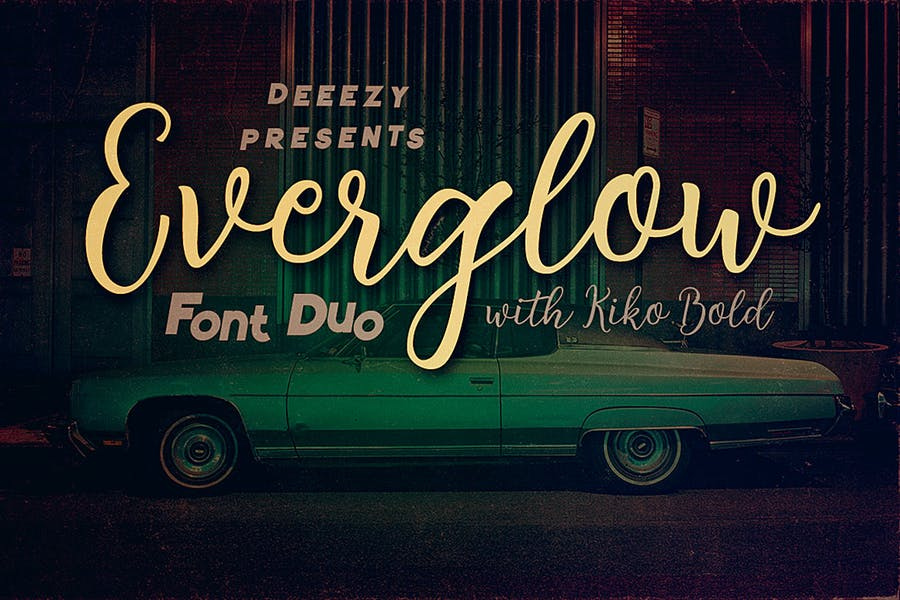
Everglow Script Font
Everglow Script Font is perfect for romantic wedding invitations, luminous beauty salon branding, ethereal event planning, enchanting lifestyle blogs, radiant personal branding, magical celebration graphics, glowing fashion campaigns, and transcendent spiritual communications.
What makes Everglow Script Font exciting is its luminous elegance that embodies radiant beauty and eternal grace with ethereal sophistication and glowing charm. The font features flowing letterforms with luminous curves and radiant character variations that evoke candlelight ceremonies, golden hour photography, and the magical glow of romantic moments and spiritual transcendence. Its distinctive glowing styling and ethereal appeal communicate beauty, eternity, and luminous grace, making every message feel illuminated from within and touched by the everlasting radiance of transcendent beauty and eternal elegance.
The Everglow Script Font family includes regular weight with uppercase and lowercase letters, numerals, punctuation marks, and special characters. Premium versions often feature stylistic alternates and luminous flourishes that enhance the radiant, ethereal aesthetic perfect for romantic and spiritual applications.
The luminous character of Everglow Script Font makes it particularly valuable for wedding industry professionals, beauty and wellness brands, and spiritual retreat centers. Its excellent readability ensures romantic messaging and spiritual communications remain clear while maintaining the distinctive glowing aesthetic that appeals to audiences seeking transcendent experiences and eternal beauty.
Romantic spiritual marketers appreciate how Everglow Script Font effortlessly conveys luminous authenticity and eternal grace. The font's flowing proportions and radiant details create beautiful brand materials that establish emotional connections with audiences who value eternal love, spiritual beauty, and the luminous expression of transcendent romance and ethereal elegance.
The versatile luminosity of this typeface extends to spiritual counseling, eternal jewelry brands, and transcendent lifestyle services where glowing authenticity enhances spiritual credibility and romantic appeal. Everglow Script Font Free Download provides creative professionals with an essential tool for developing memorable, radiance-driven designs that resonate with audiences who embrace eternal beauty, luminous spirituality, and the flowing grace of everlasting glow in their romantic and spiritual experiences.